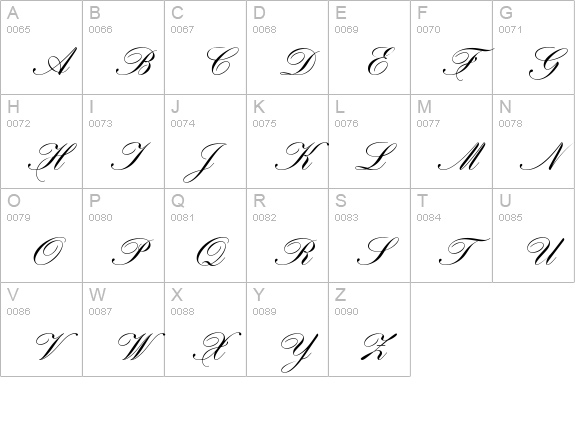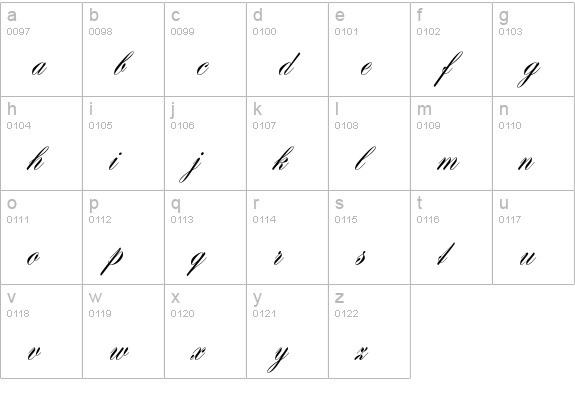
HogarthScrD Font Details
Below you can preview HogarthScrD in uppercase [A-Z], lowercase [a-z] and numbers [0-9]. You can also read the author's notes and license information before downloading.
The HogarthScrD font is a whimsical and elegant script typeface that exudes charm and sophistication. With its unique hand-drawn appearance and intricate details, this font is perfect for adding a touch of personality to your designs. Whether you are working on invitations, branding, or any other creative project, HogarthScrD will surely make a statement. The best part? HogarthScrD is available for free download at FontsMarket.com. Take advantage of this stunning font to elevate your designs and captivate your audience with its timeless appeal. Let HogarthScrD be the perfect addition to your font collection and unleash your creativity today.